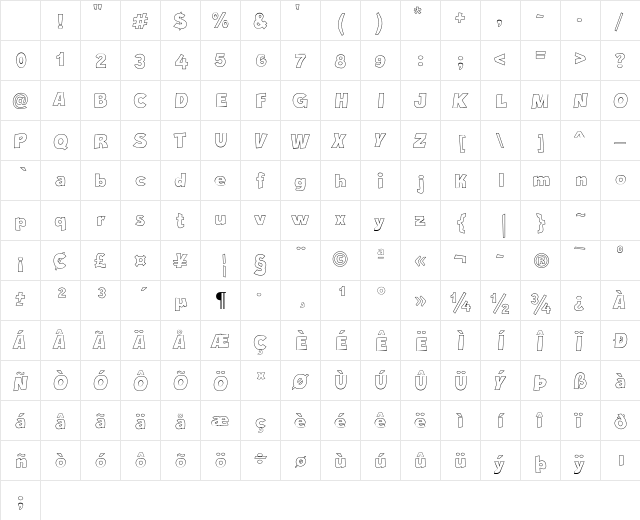
Complete Crazy Krabs Outline Regular glyph index. Displaying only characters natively supported by Crazy Krabs Outline Regular font.
Crazy Krabs Outline is built around its visual character rather than neutral utility - its distinctive forms are designed to make an impression at display sizes.
Font Pairing: Pair with a clean neutral sans-serif for body copy to let Crazy Krabs Outline's character lead without overwhelming the composition.
Pro Tip: Use Crazy Krabs Outline exclusively at display sizes - it was designed to be seen, not read at length. Let a neutral companion handle body copy.